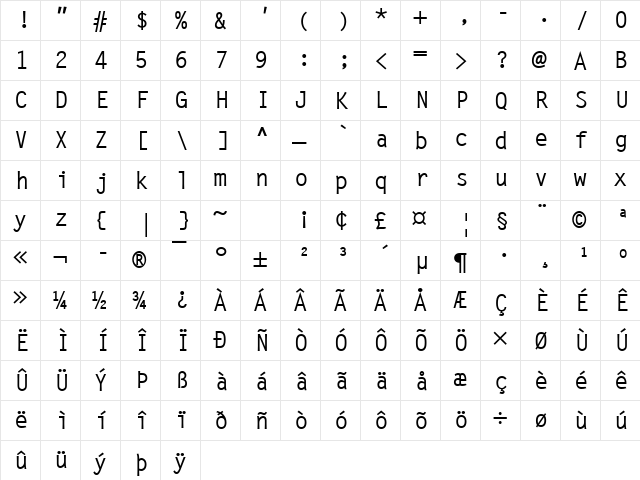
LetterGotLMed Regular Font Preview
LetterGotLMed Regular
LetterGotLMed Regular Font Details
Design Context for LetterGotLMed Typeface
LetterGotLMed takes a measured approach to typography — its balanced proportions and neutral character make it a reliable workhorse for both digital and print work.